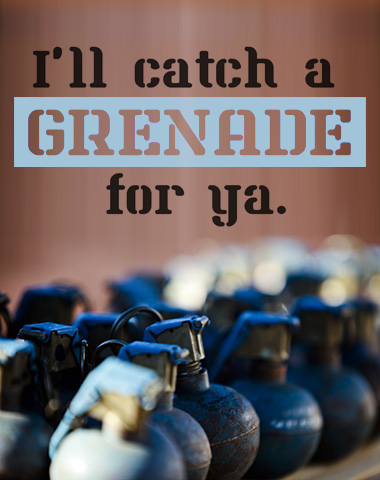
FRAGG as in Frag Grenade. 072613 Added lower case. 072813 Added numbers
This is a great fontstruction! Very simple, but it has it's own flavour. I love the K and the Q.
You're doing it on purpose, aren't you, geneus?
Why??
Haha, I love FS so much. xD
This inspired me. :)
Cool sample!
Dayum good, as always. I´ve missed some awesome stuff
I'm loving it!
Rife with your innovative “impossible” curve-to-diagonal continuities, a very well-played stencil face.
p.s. Your signature at the end of this one is bangin’!
Great stencil with an excellent finish. Lower case matches it perfectly.
I love this font.
Congratulations! FontStruct Staff have deemed your FontStruction worthy of special mention. “Fragg” is now a Top Pick.